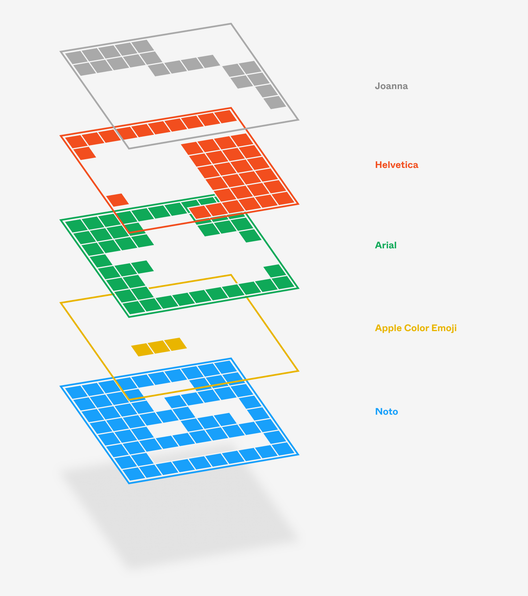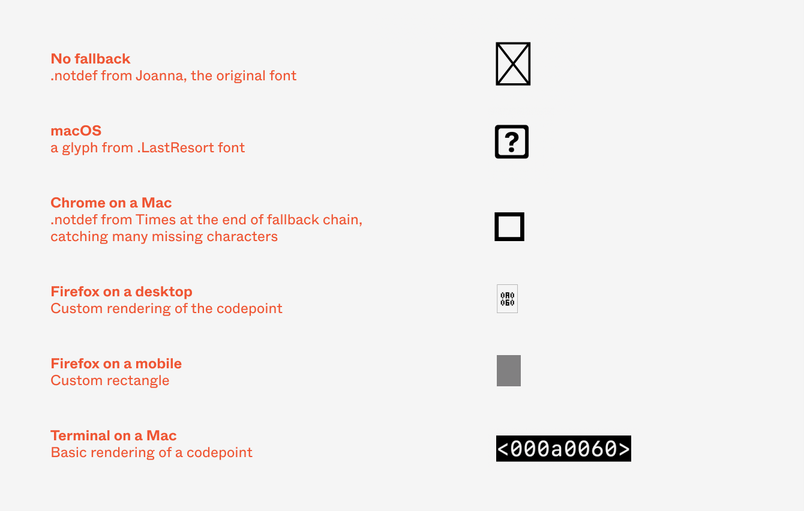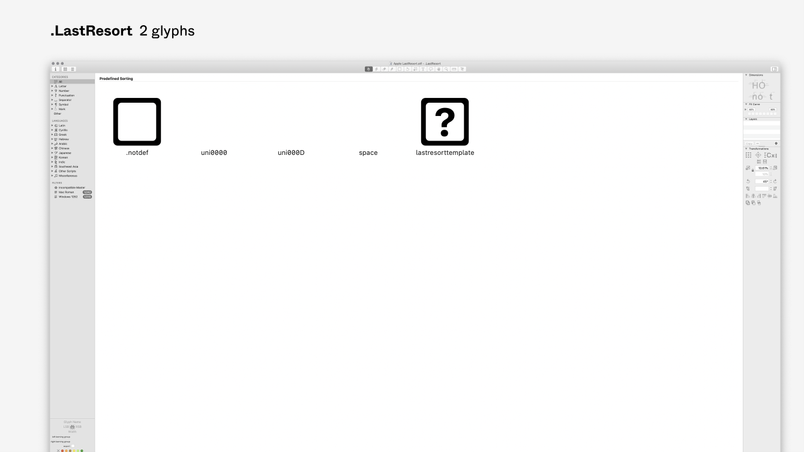
When fonts fall
One of the typographical questions we get often is, “How does font fallback work exactly?” It’s not even that Figma does something unique here (although we have our own specific take), but font fallback is just complex, filled with quirks and unexpected side effects. Our resident font enthusiast Marcin Wichary decided to dig into the issue and prepare an exhaustive guide to font fallback, its beauty, and all the pitfalls.
Raise your hand if you’ve ever encountered any of the following—and don’t put it down.
You’ve received a text with weird boxes or question marks like this:
Or, the emoji looked fine to you when you sent it, but arrived weirdly disassembled to the recipient?
You saw someone using cool fonts on Twitter, a place you didn’t think allowed people to choose fonts?
Or, you actually figured out how to use those fonts on Twitter, only to have someone shout at you to think of screen readers—or to complain about seeing empty boxes.
You added an emoji to a line—and at that moment, that line awkwardly shifted down:
You sent someone a really cool kaomoji, only for someone to complain that it doesn’t look that great on their end:
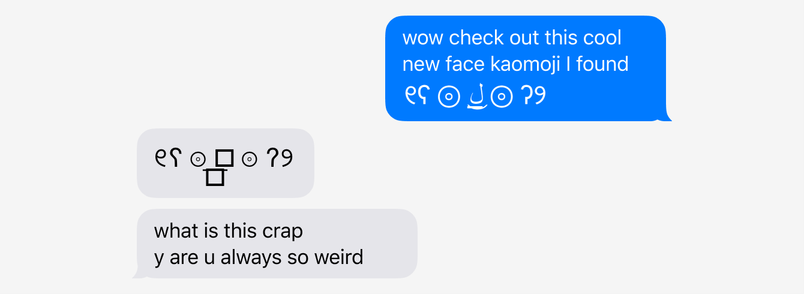
Something tells me there is no one left with their hand down at this point. (If you actually raised your hand, thank you!)
These little transgressions can be confusing, but not frustrating enough to spend time dissecting. They seem like small bugs that permeate everyday interaction with our tasteless machines.
But these are not bugs, at least not in the traditional sense. All of these examples can be explained. Moreover, all have one common underlying cause—an important and in some ways very impressive mechanism of computer typography many of us might be completely unaware of. That mechanism helps fonts when they run out of characters, and it’s called font fallback.
This space (sometimes) intentionally left (somewhat) blank
As a type designer, one of your jobs is to give your font every glyph it needs.
A glyph is a typographical term roughly meaning a character. Even a simple western font comes with over two hundred glyphs: twenty-six letters of the alphabet plus the same bunch in uppercase, ten digits, symbols, punctuation, accents.
Not every font is western, of course. If you’re designing for Chinese and Japanese writing, your glyphs will number in the thousands. But either way, there are always glyphs to draw, even in a smaller font: symbols and ligatures, esoteric punctuation, digit and letter alternatives to be used with OpenType features In Figma you can now turn on additional ligatures, customize the style of digits, switch to alternative letterforms, and make use of adjustments available in many of today’s fonts.
At some point, you have to draw the line. That line is one last glyph. It comes with a technical name, .notdef, and the dot is there to signify it’s unlike any others. .notdef is a glyph of last resort, one to be used when a font is asked for a character its designer did not bother to draw.
.notdef is the original version of font fallback—a rudimentary solution for a problem that didn’t exist when printing was physical. In the world of metal type, when you hold a letter in your hand you also hold its specific font—and so it’s impossible to ask a font to output a letter it has never heard of. But computers put a strange distance between fonts and text. A computer can display text written by someone else, perhaps long ago, and using a font unknown to its creator, or one that might have not even existed when that text was created. And so a font needs to be able to say, “I have no idea what this particular character is supposed to look like.”
.notdef often looks like a simple rectangle, sometimes with a cross inside. It’s a shorthand for “this space intentionally left blank.” It’s not a traditional Unicode character with its own specific code—rather, just a rectangle that is drawn to cover up for the character that should be there. When you copy and paste it, under the hood it remains the original character you wanted to see. After all, the font might be updated in the future with more glyphs, or you might simply switch to another font that supports the character you wanted:
What gets drawn as .notdef glyph is for the font’s designer to figure out. Even within the rectangle convention, the sizes will vary—and some type designers take their rectangles and cross them out, or adorn with question marks:
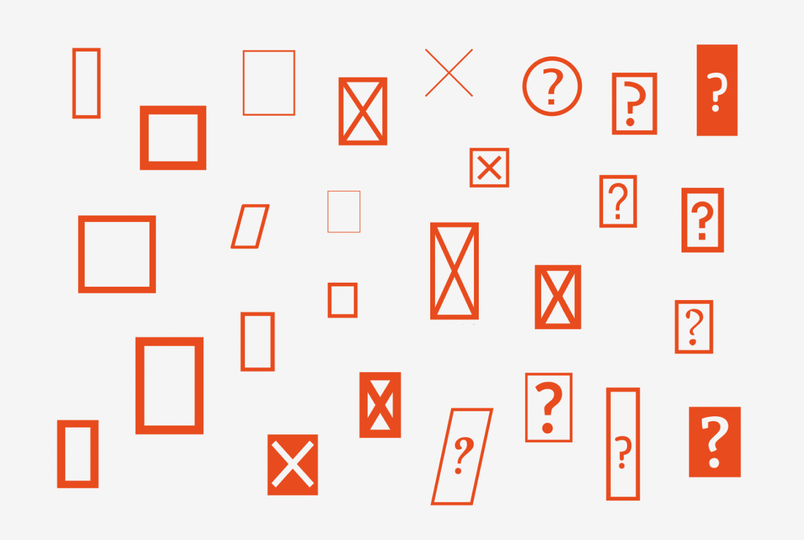
Other designers give up and don’t do anything, leaving .notdef to be a blank square. Others still… well, they go a bit wild:
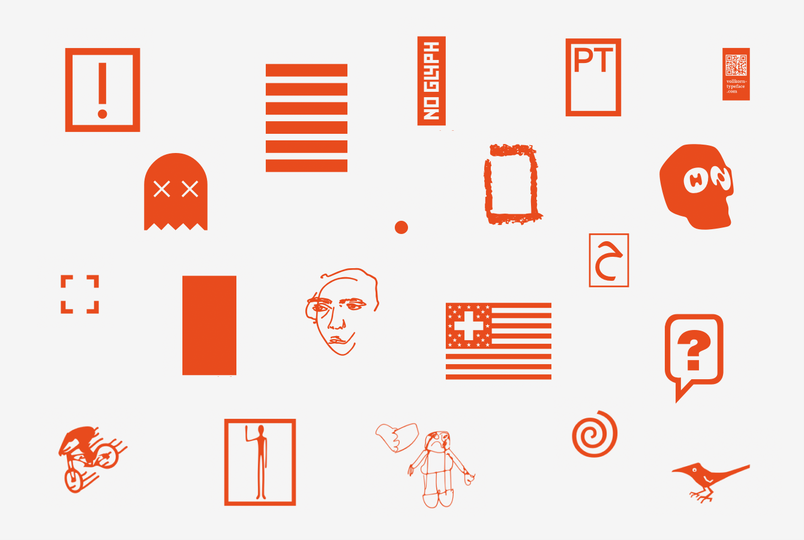
The wild examples are rare, but the regular rectangles? Something tells me you’ve seen one of those rectangles more than a few times in your life.
And yet, you might be surprised how much more often you would see them, if there wasn’t a whole invisible, impressive, and idiosyncratic system to cover every font’s back.
The font fallback you know and love (ǝʇɐɥ oʇ)
The flavor of font fallback most of us are familiar with comes from the web. It looks something like this:
That this is at all possible, that there’s a battery of fonts ready to jump in and help me out, feels like a small miracle. And the fact that sometimes one might still see a tofu, a decorated question mark, or a dangling skin tone modifier? It’s just a small price to pay.